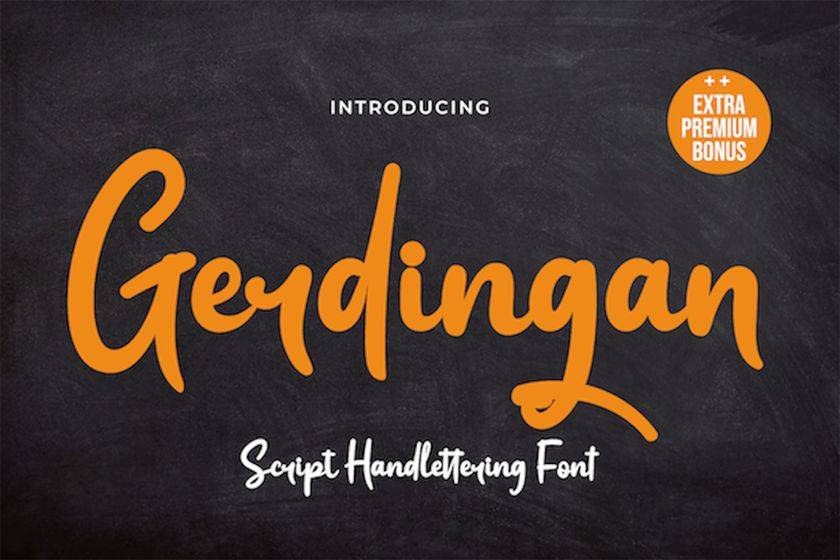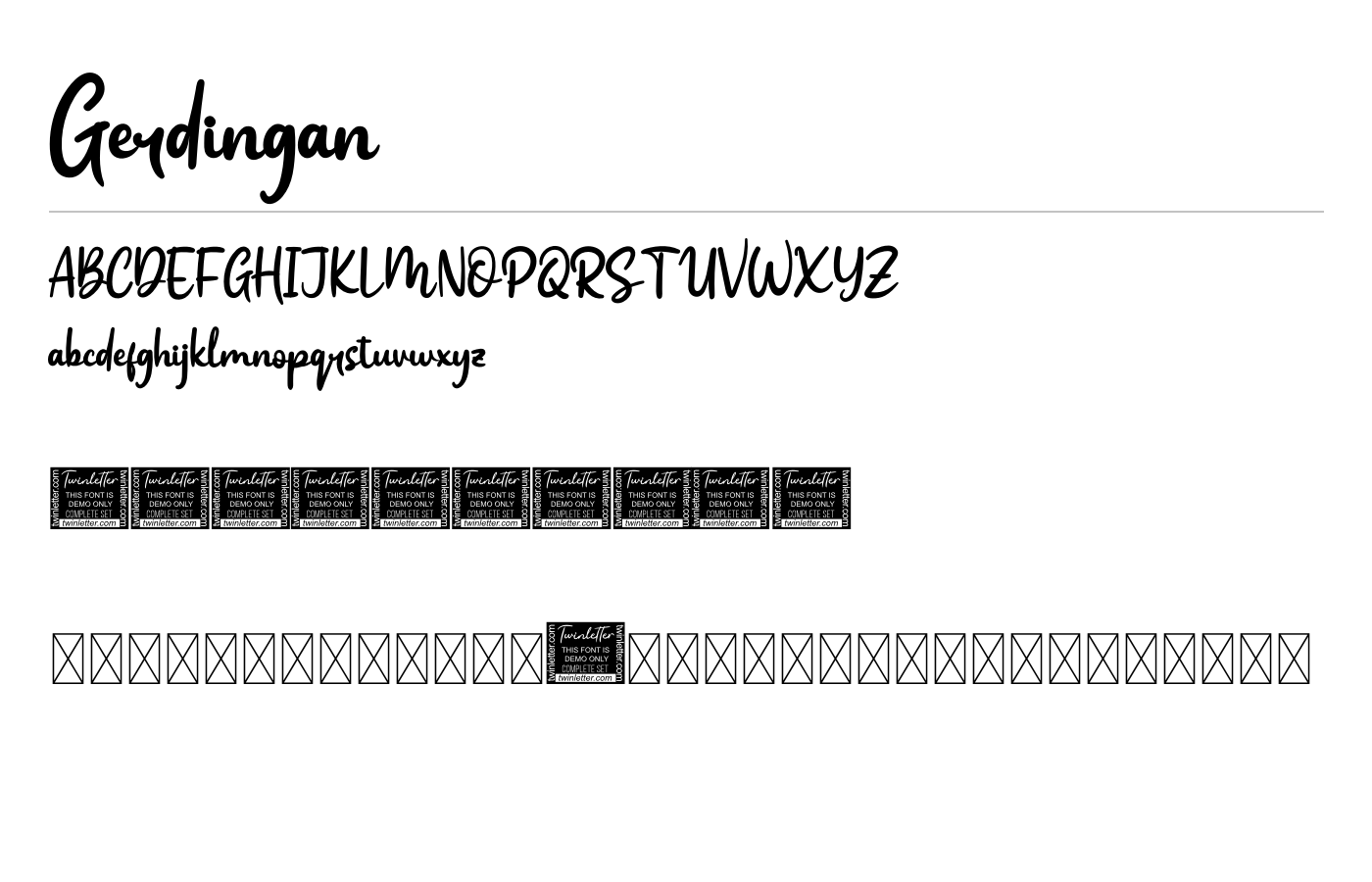
Gerdingan is a lively and casual script font with a hand-drawn feel, characterized by its smooth, flowing strokes and playful letterforms. Its medium weight and slightly condensed structure make it versatile for informal branding, invitations, and creative projects where a personal, approachable look is desired. Perfect for adding a warm, friendly touch, Gerdingan works well in headlines and logos that aim to convey creativity and personality.
Gerdingan Font
About Gerdingan Font